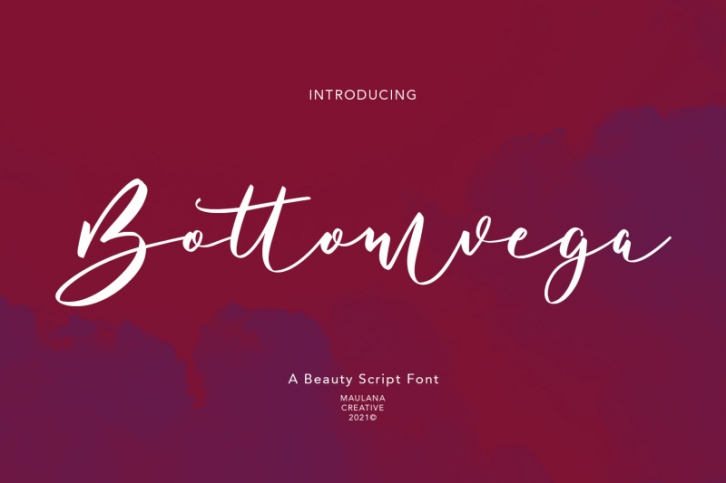
Bottomvega Beauty Script Font Download
Bottomvega is casual signature font, with feminine high contrast thin stroke, super slanted and fun character. It has Opentype features ligatures of character, To give you an extra creative work. Bottomvega font support multilingual more than 100+ language. This font is good for logo design, Social media, Movie Titles, Books Titles, a short text even a long text letter and good for your secondary text font with sans or serif. Make a stunning work with Bottomvega font.